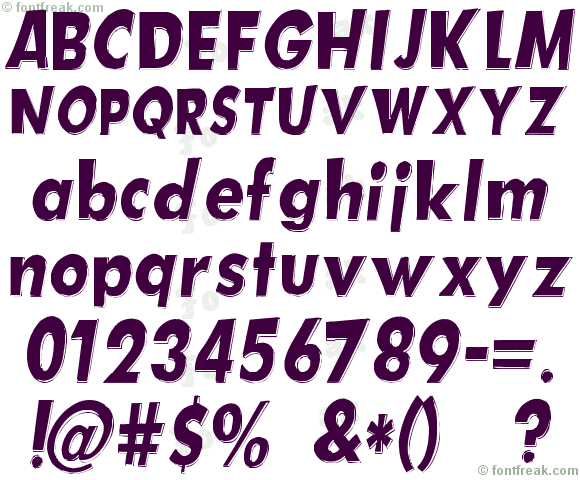
Hotplate (sRB)
About Hotplate
The Hotplate font by Srb-powers is a unique display typeface that stands out with its playful and engaging design. Featuring a rounded, soft-edged style, this font exudes warmth and approachability, making it an excellent choice for various creative projects. The stroke weight is consistent throughout, offering a balanced look, while the moderate spacing between characters enhances readability, ensuring that your text remains clear and inviting. The font incorporates subtle decorative elements that add character without overwhelming the overall aesthetic, making it suitable for a range of applications.
Hotplate is particularly well-suited for use in restaurant menus, where its inviting appearance can help create a welcoming atmosphere. It also works beautifully for event flyers, as its unique style can capture attention and spark interest. Additionally, this font is ideal for children's book covers or educational materials, where its friendly design can engage young readers. Graphic designers looking to add a touch of whimsy to branding projects will find Hotplate to be a valuable asset, while small business owners may appreciate its ability to convey a casual yet professional vibe.
What truly sets the Hotplate font apart is its ability to blend fun with functionality. Its charming design can make any project feel more vibrant and user-friendly, ensuring that your message resonates with your audience. Whether you’re crafting a menu, designing an invitation, or creating marketing materials, Hotplate is a font that brings warmth and personality to the forefront.